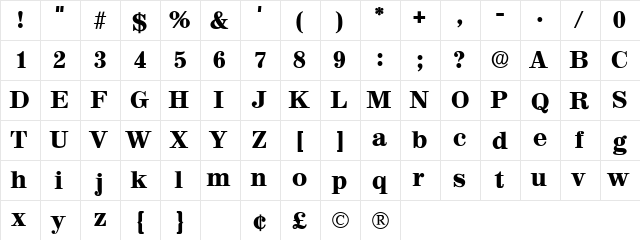
Lucia Display SSi Regular
Design Context for Lucia Display SSi Typeface
Lucia Display SSi brings ornamental detail and strong personality to headlines and identities, where visual impact matters more than quiet functionality.
Font Pairing: Pair with a clean neutral sans-serif for body copy to let Lucia Display SSi's character lead without overwhelming the composition.
Pro Tip: Use Lucia Display SSi exclusively at display sizes — it was designed to be seen, not read at length. Let a neutral companion handle body copy.